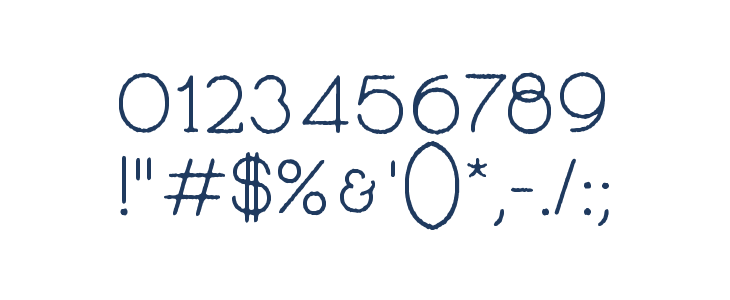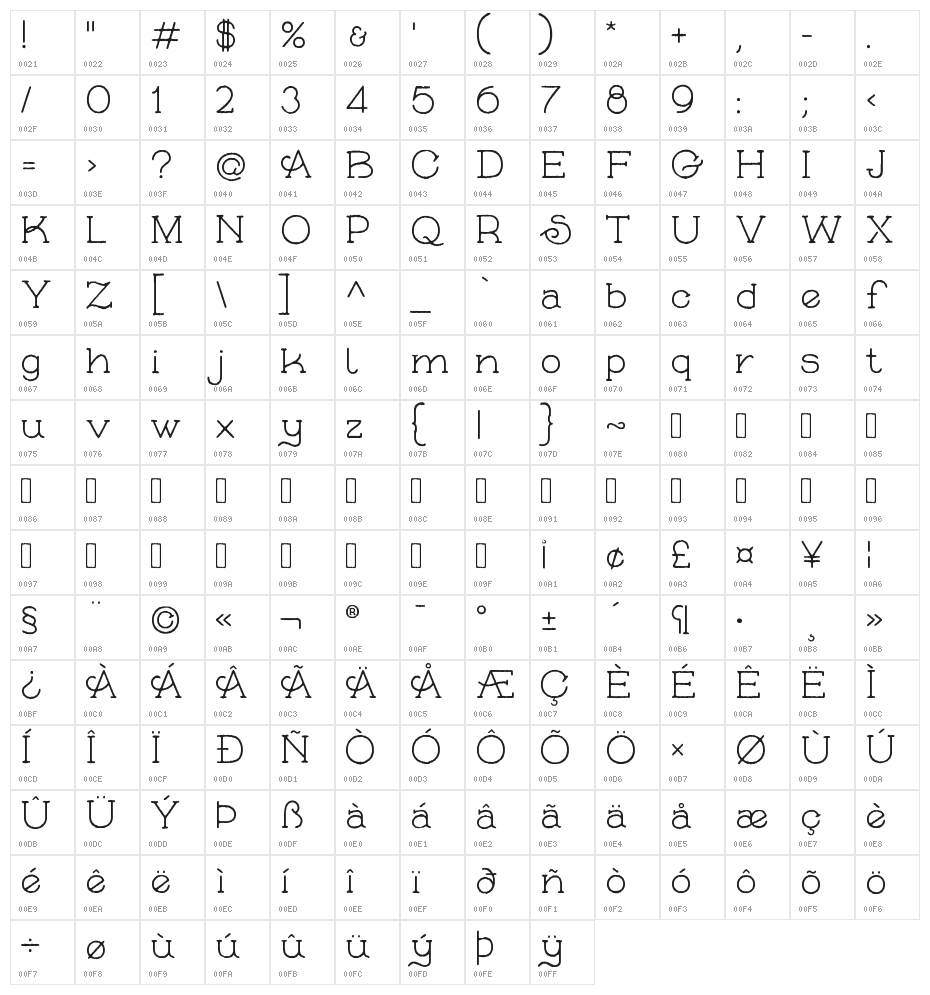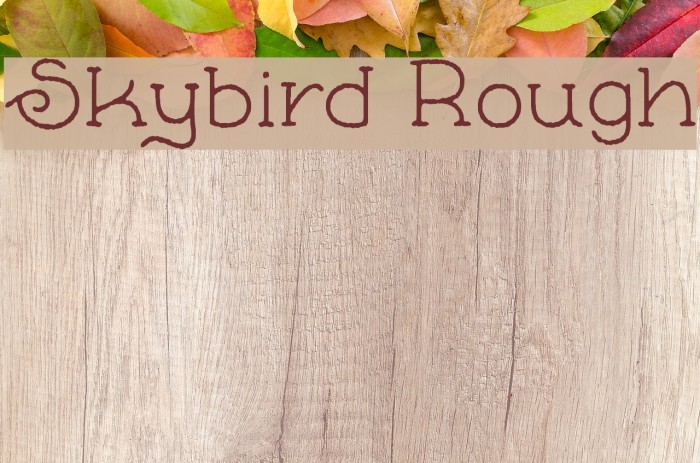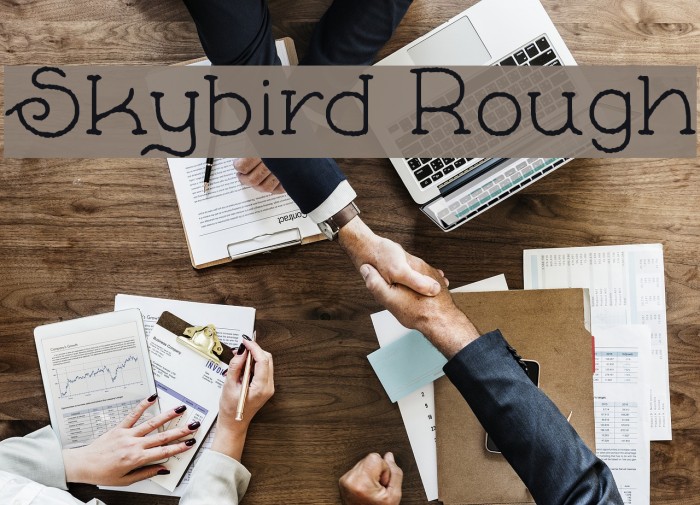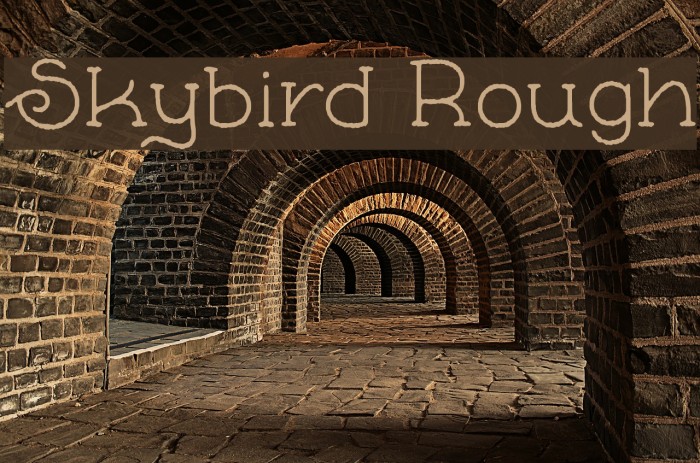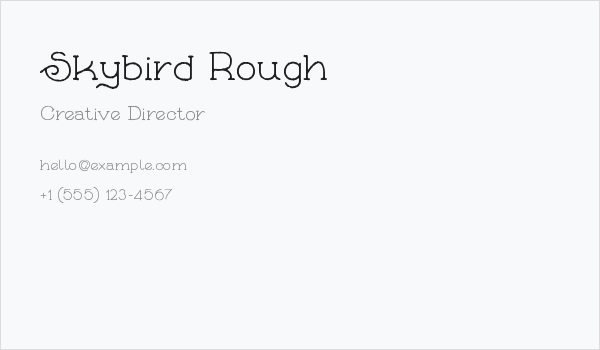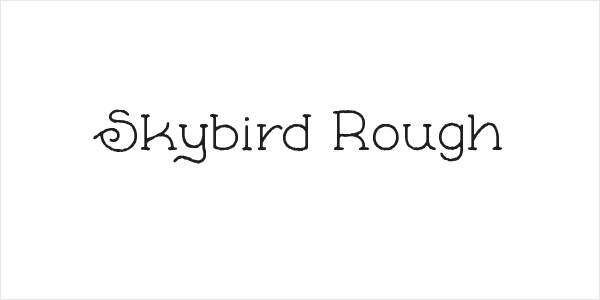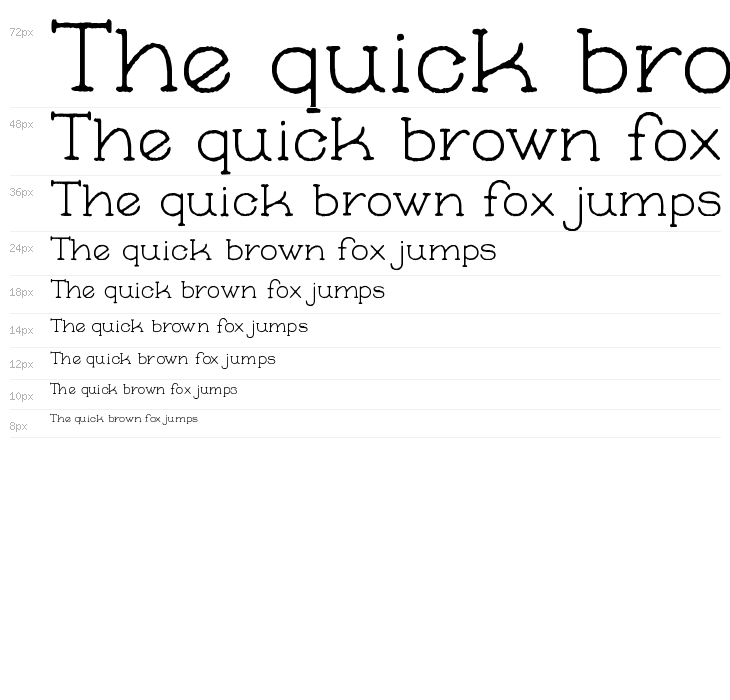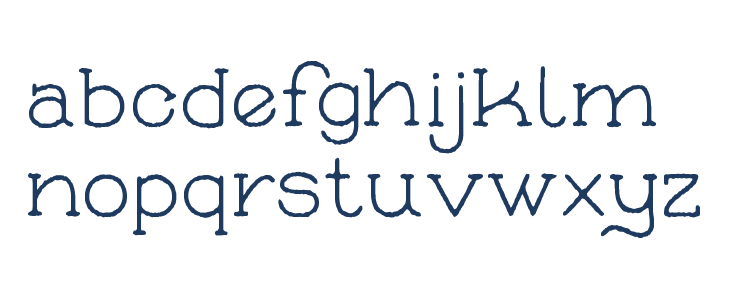
Skybird Rough Font
Skybird Rough Description
This font features a distinctive rough, hand-drawn appearance that gives it a unique and artistic flair. The characters are slightly irregular, with a textured look that mimics the effect of a brush or pen on paper. The uppercase letters are bold and commanding, while the lowercase letters maintain a consistent style with a playful twist. Numbers and special characters follow the same design ethos, ensuring a cohesive look across all text. This font's rough edges and organic feel make it ideal for projects that require a touch of creativity and individuality.
| Use Case | Logos, Posters, Invitations |
| Proposed Projects | Ideal for artistic projects, branding, posters, and invitations that require a creative and unique touch. |